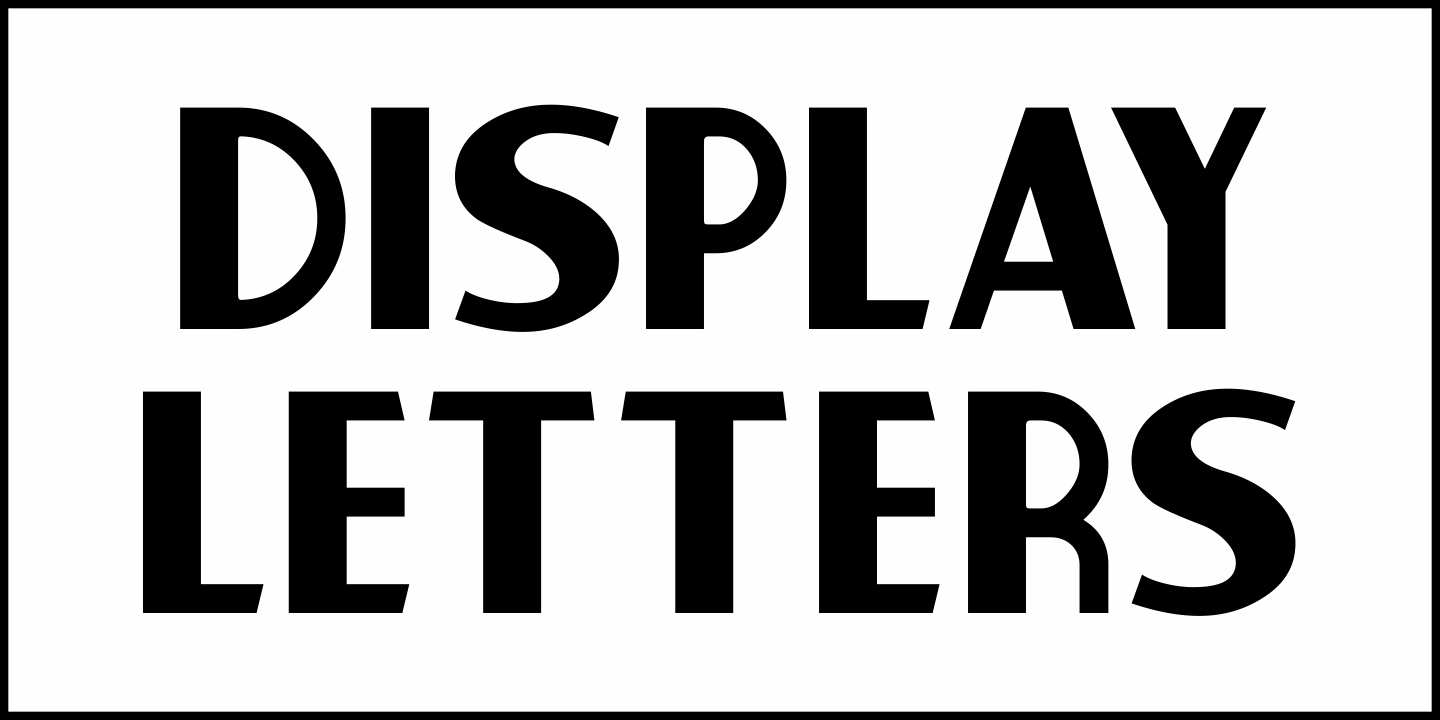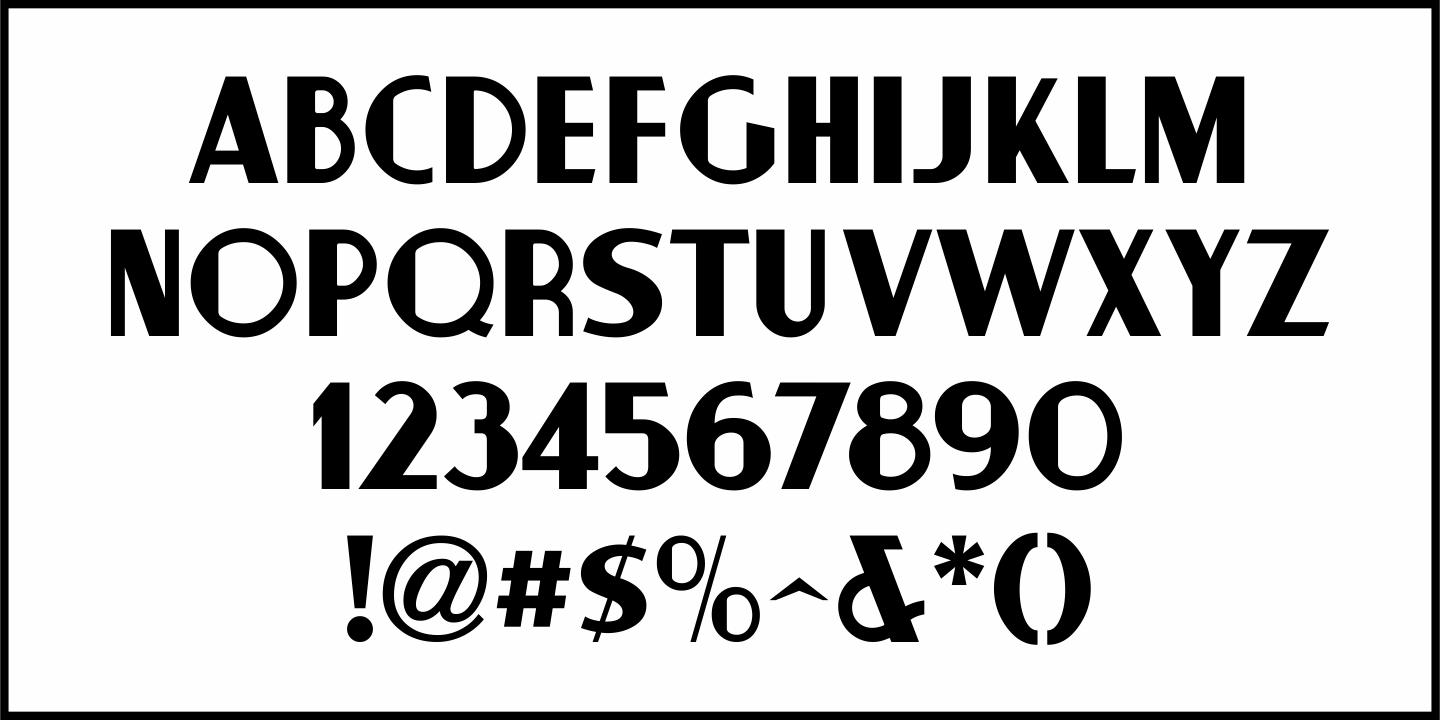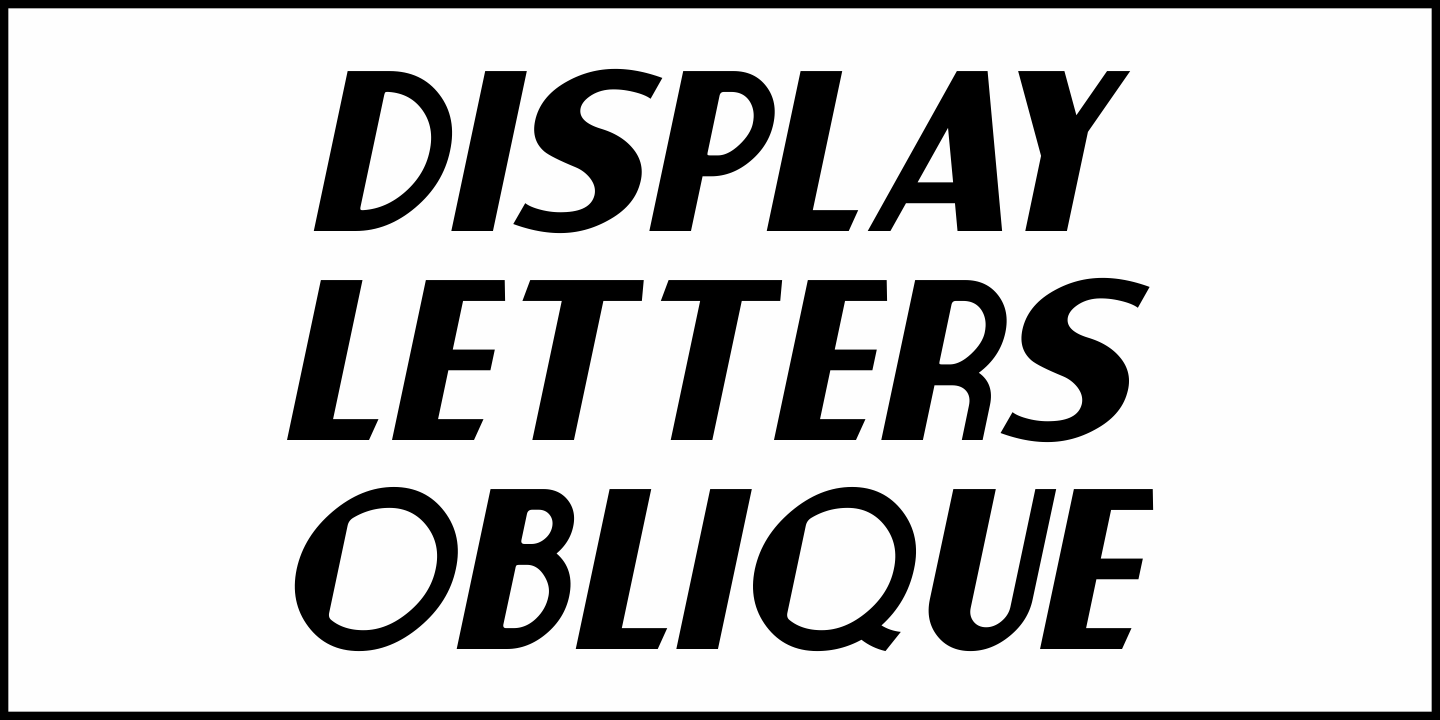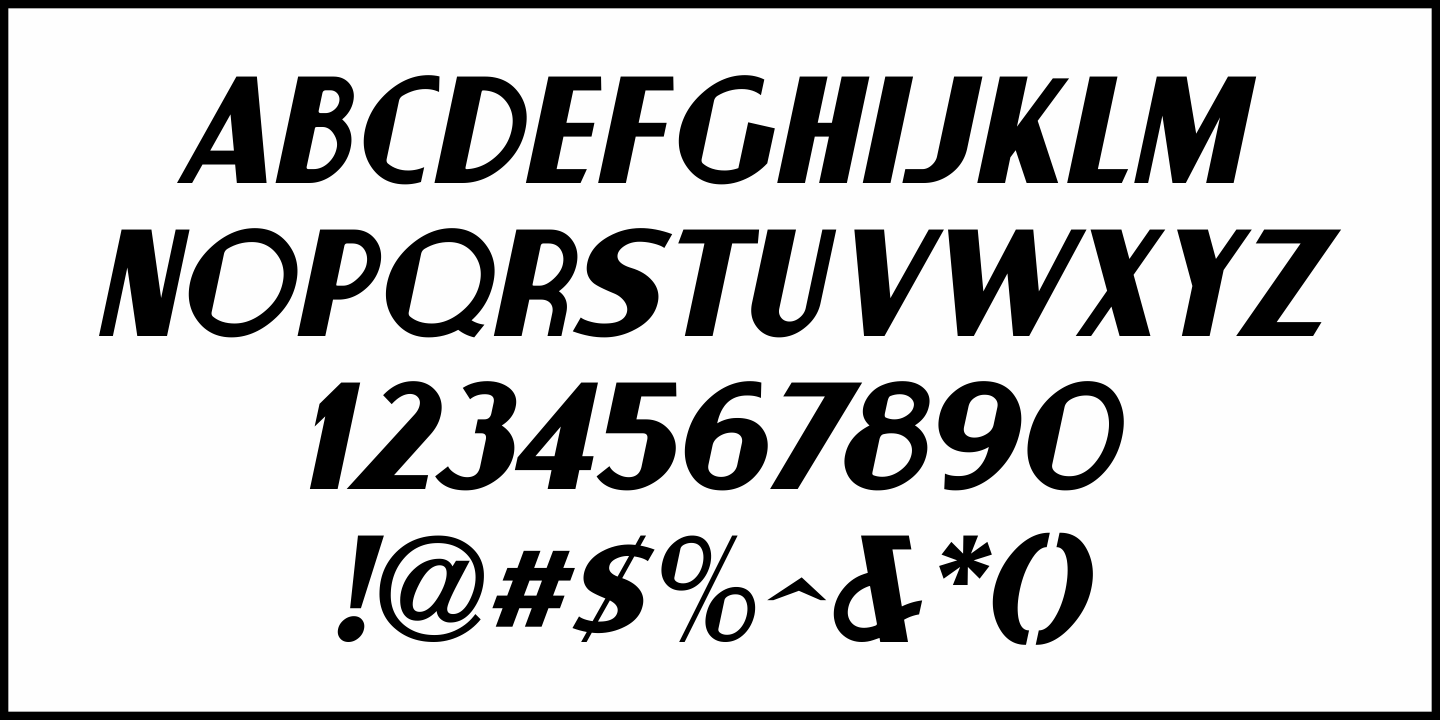
Display Letters JNL
The Redikut Letters Company of Hawthorne, California was a supplier of die cut cardboard letters and numbers to the sign trade. These were manufactured in various styles, sizes and colors for use in display and show card work.
One such style - a classic Art Deco thick and thin sans inspired Display Letters JNL, which is available in both regular and oblique versions.